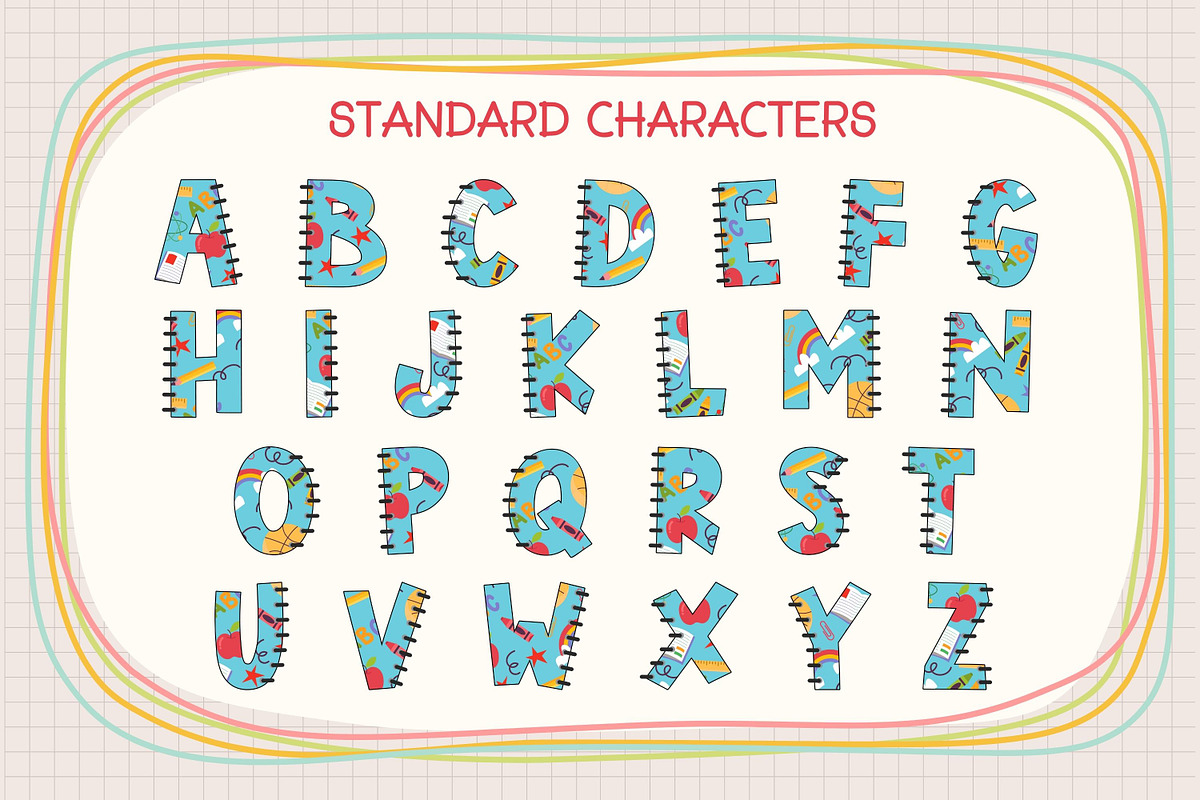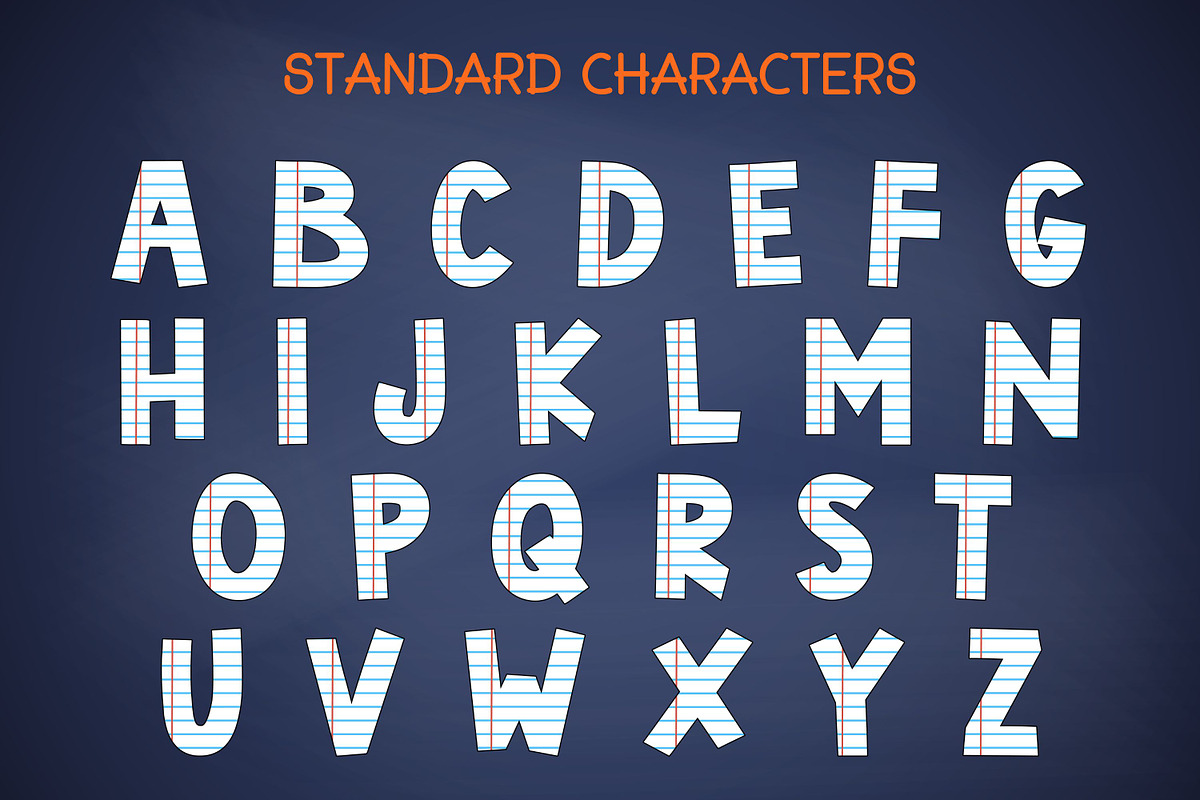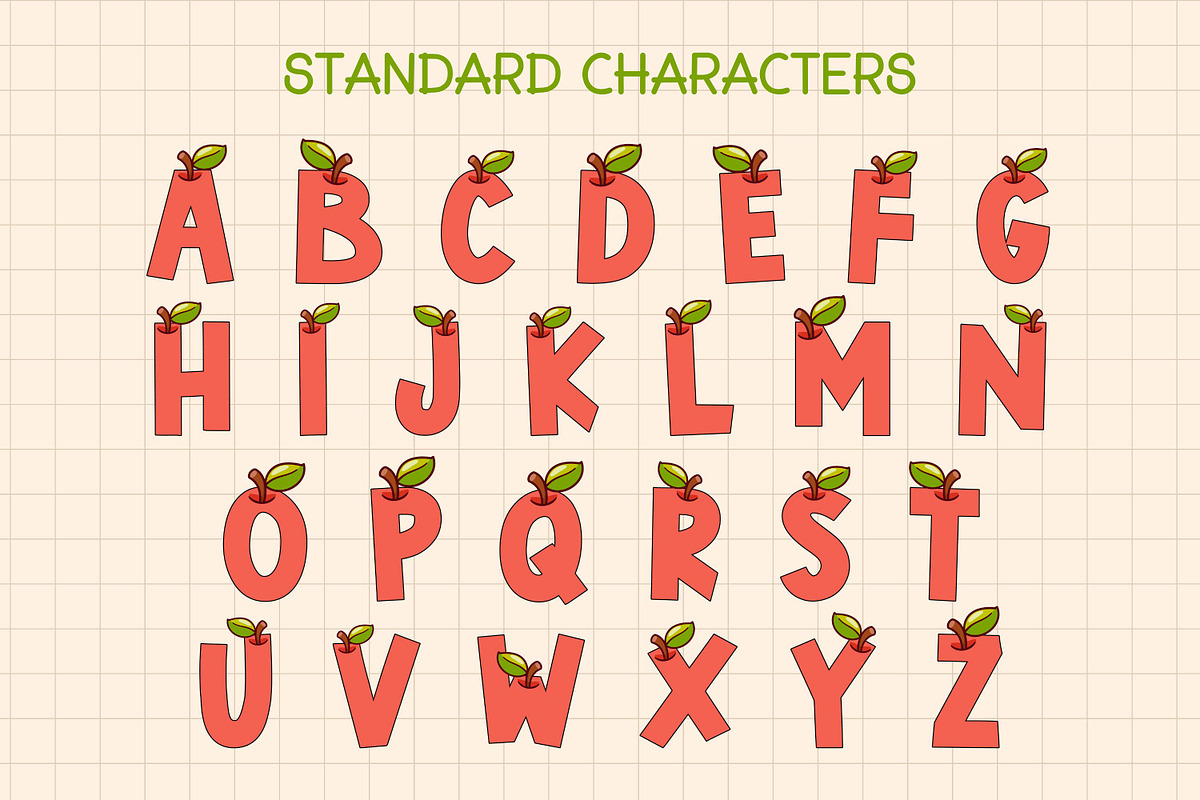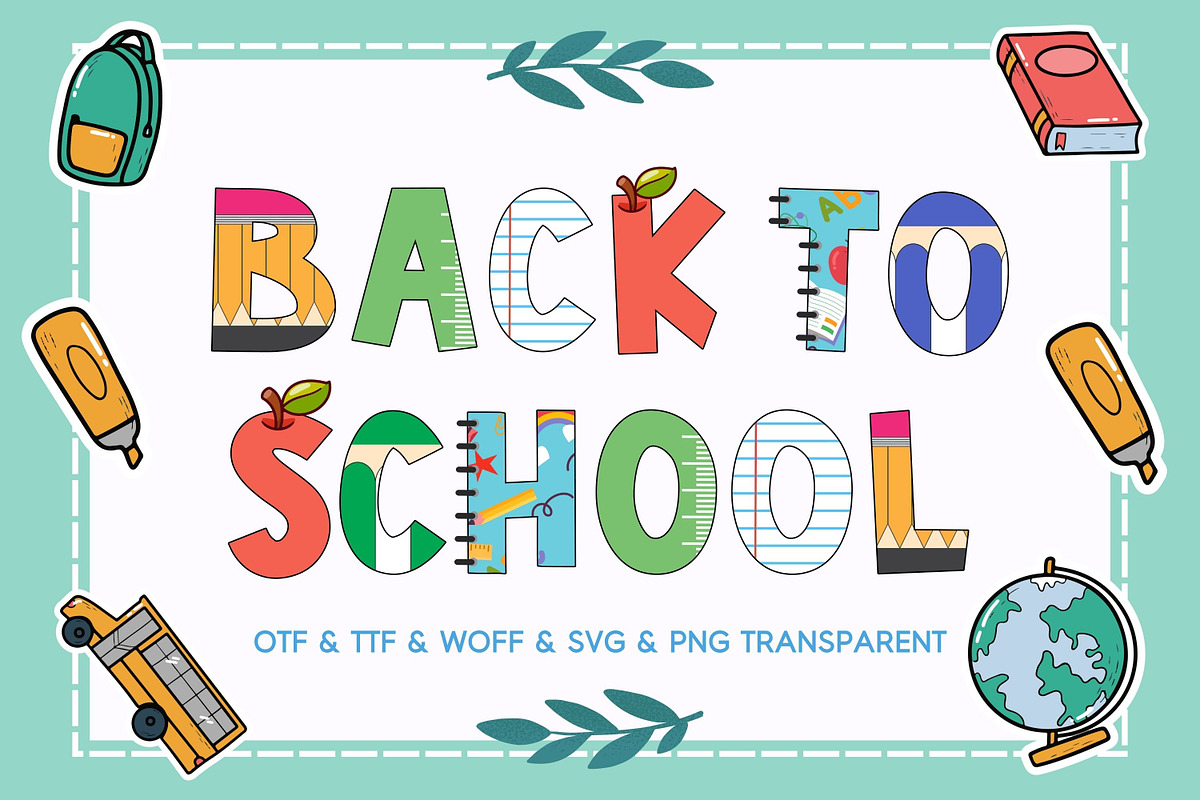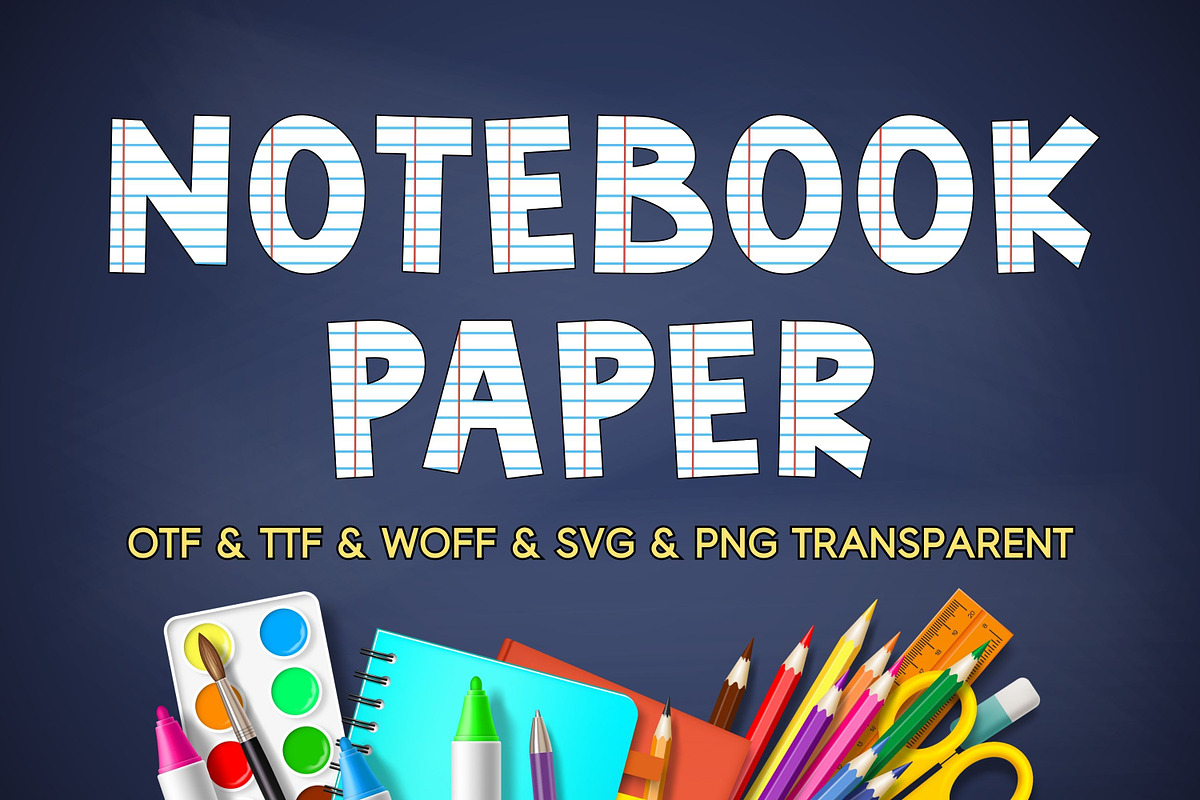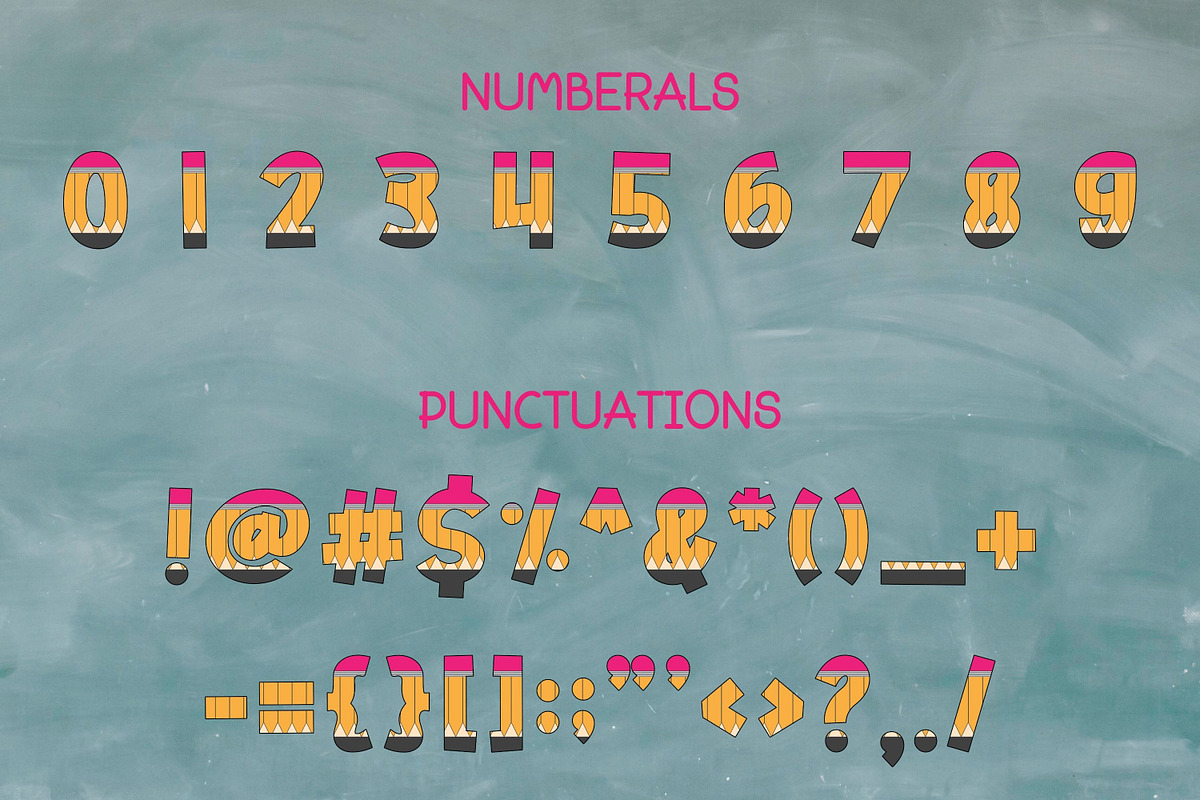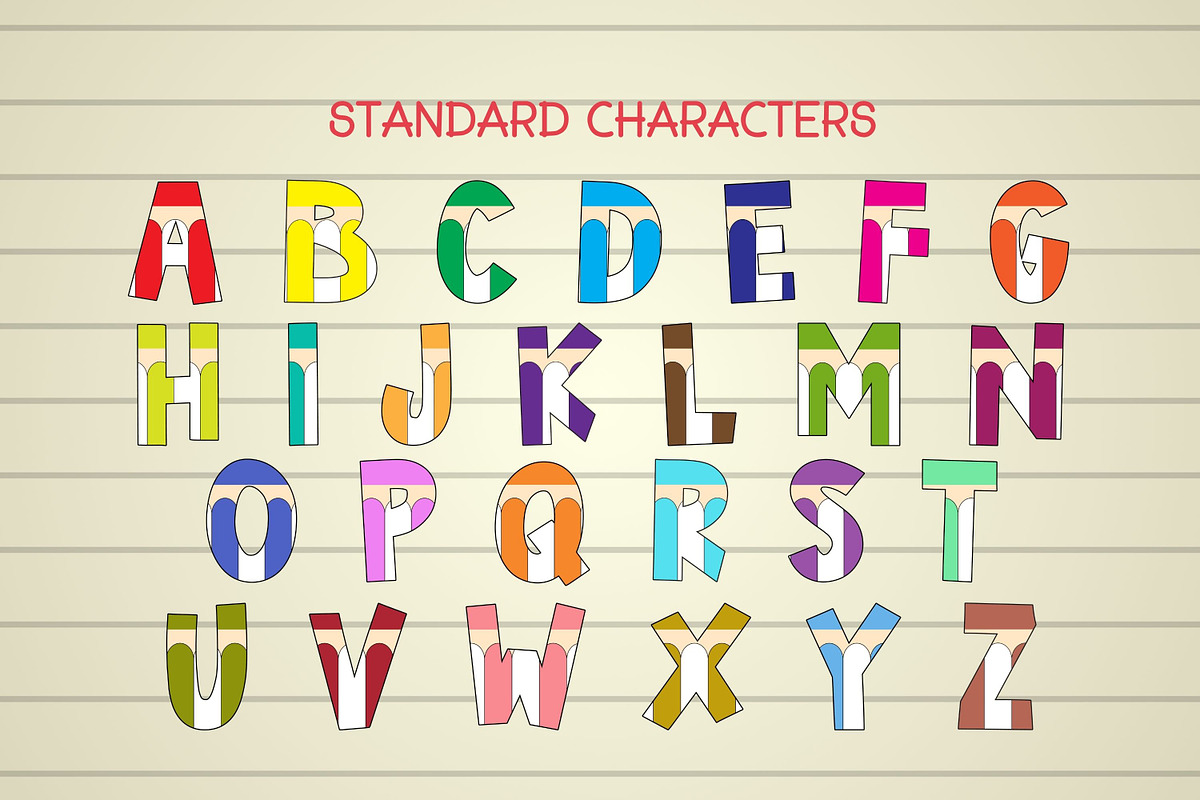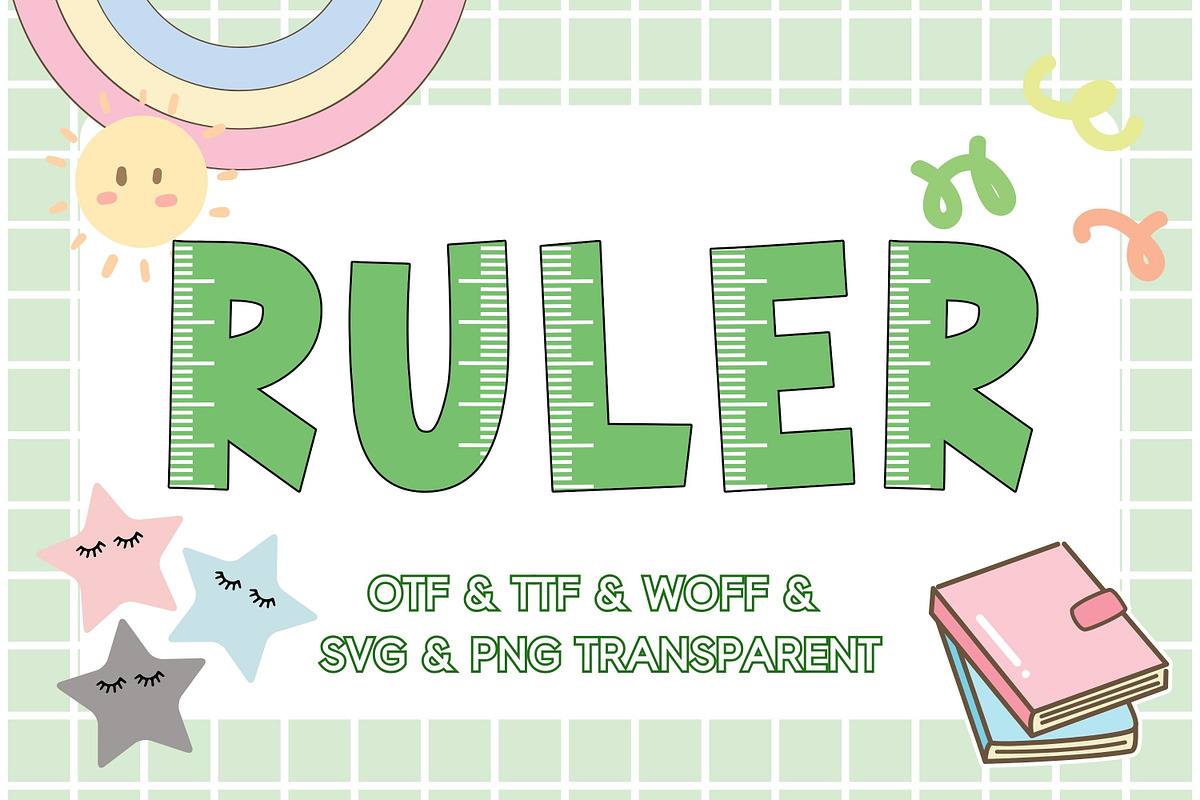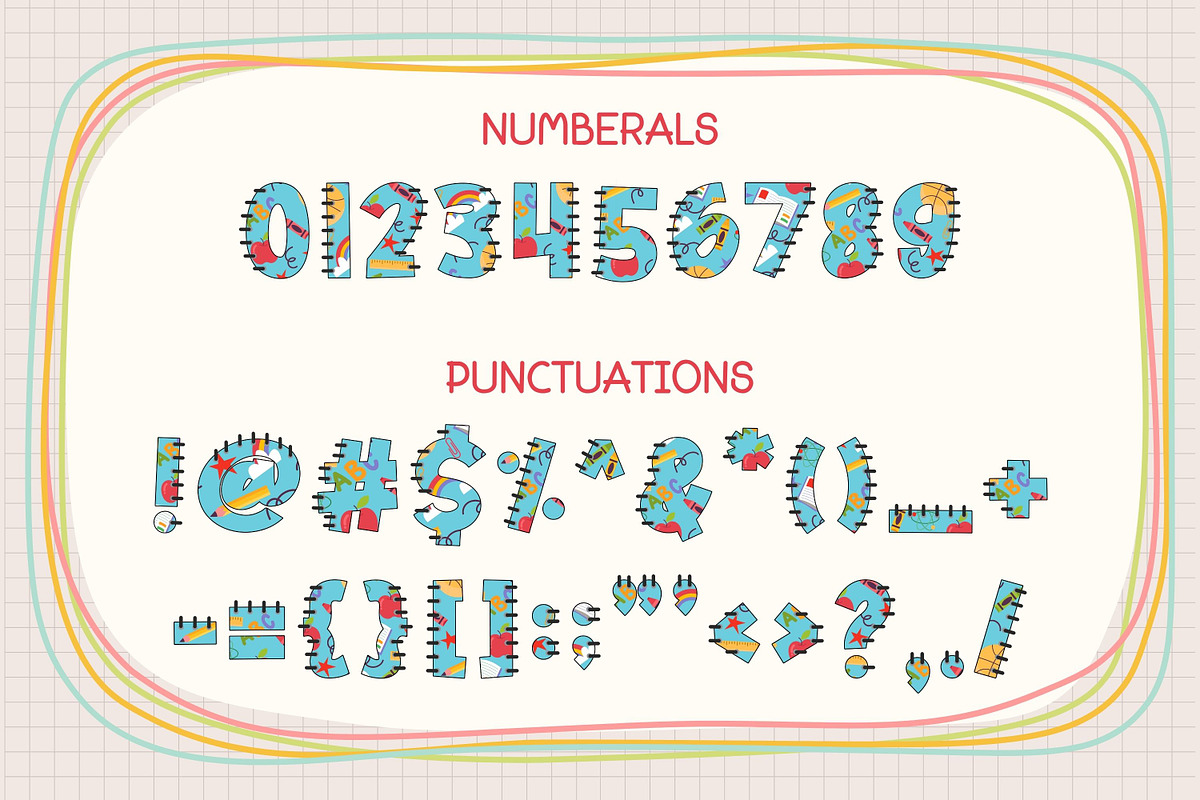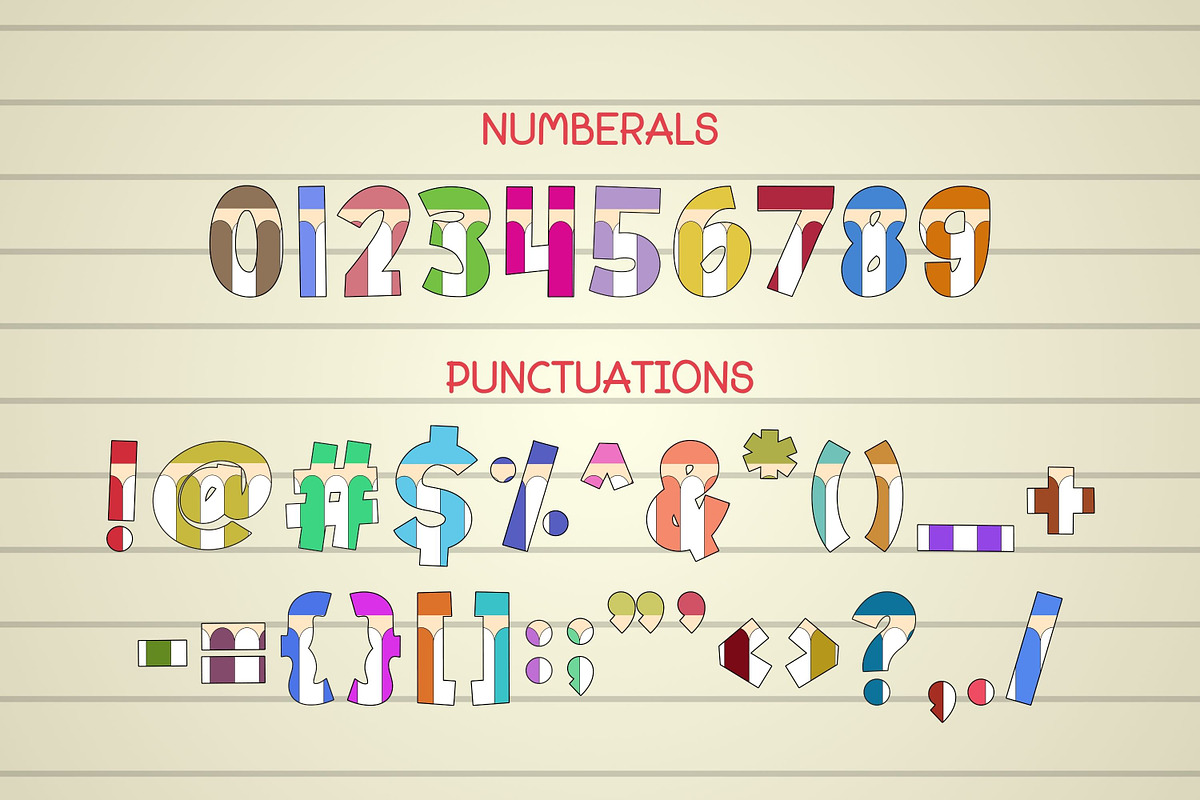
Back To School - 6 Color Fonts
The Back To School Fonts is a playful and vibrant color font designed to mimic the appearance of stationery for students
6 fonts included: ⭐️Pencils font ⭐️Ruler font ⭐️Notebook Paper font ⭐️Red Apple font ⭐️Spiral Book font ⭐️Color Pencils font
Ideal for educational materials, children’s designs, posters, bulletin boards, school projects, and playful branding, Back To School brings instant visual interest and personality. It is provided in multiple formats—including OTF, TTF, WOFF, SVG, and transparent PNG—for broad compatibility across both print and digital platforms. Whether you’re designing for teachers, students, or fun creative content, this font delivers a cheerful, tactile energy that’s eye-catching and fun to use.